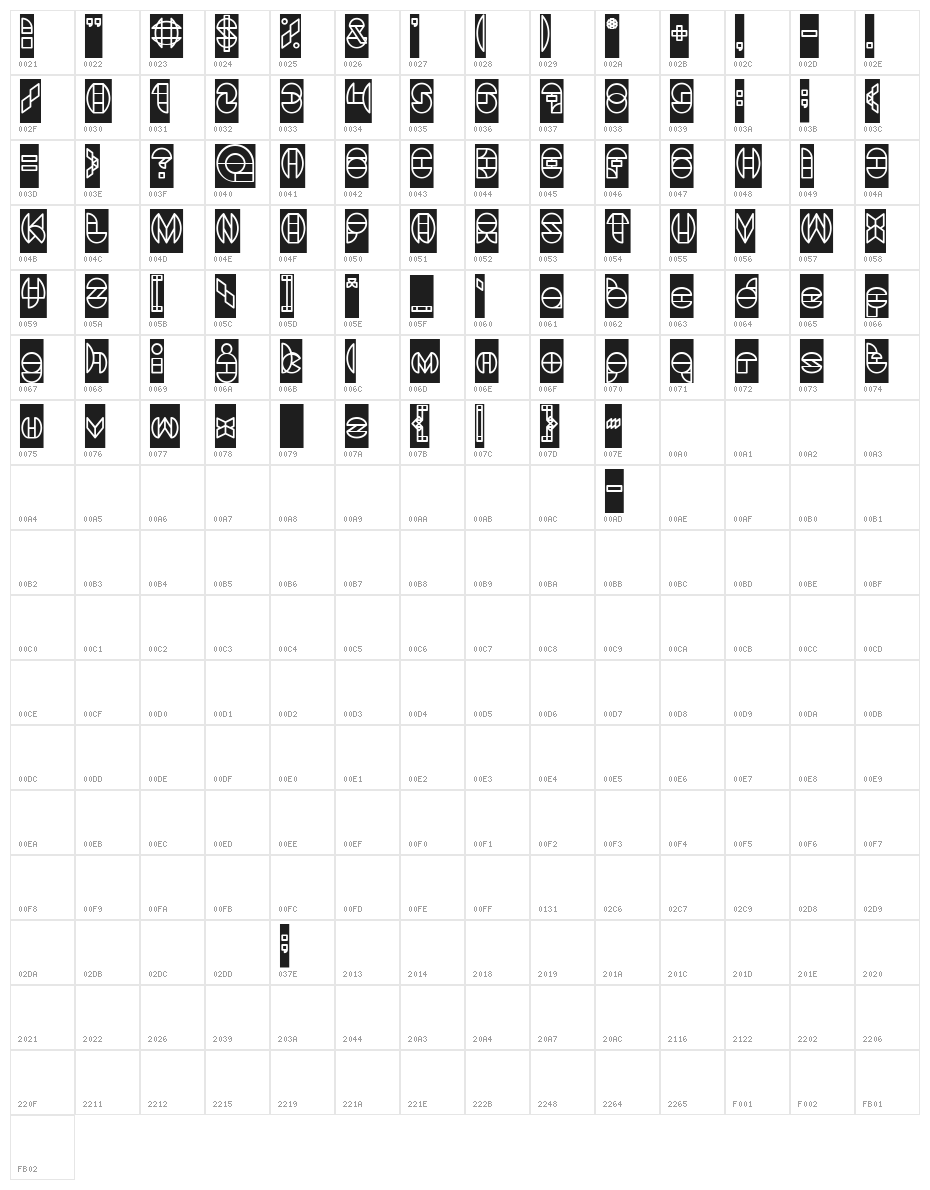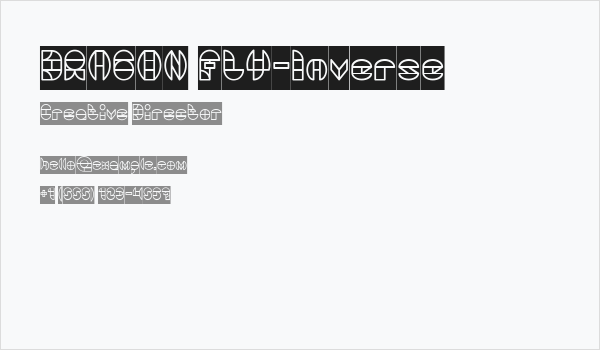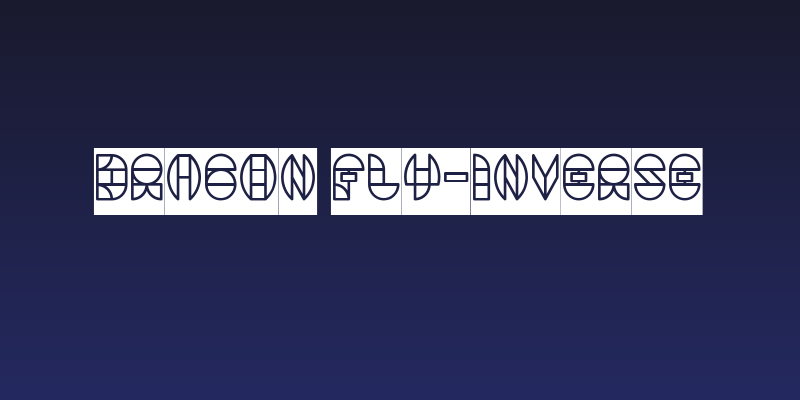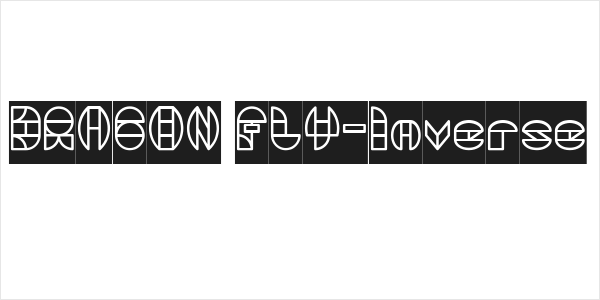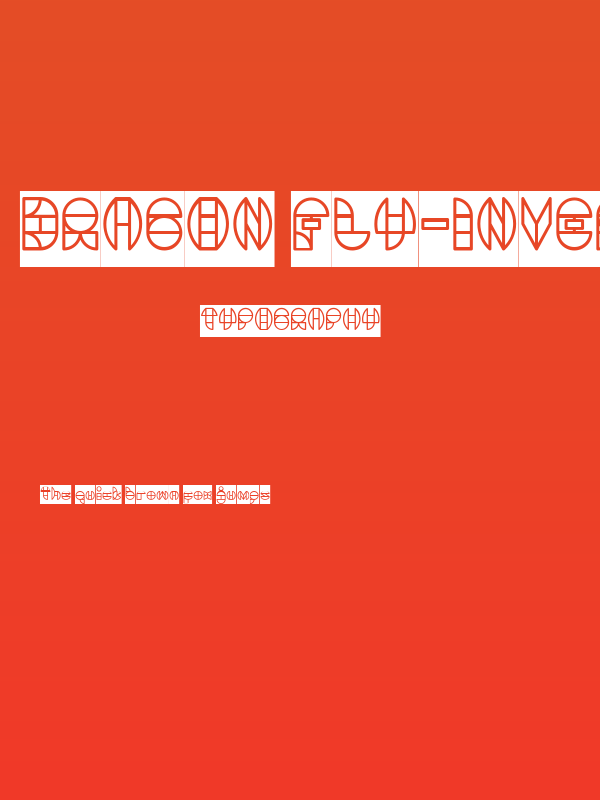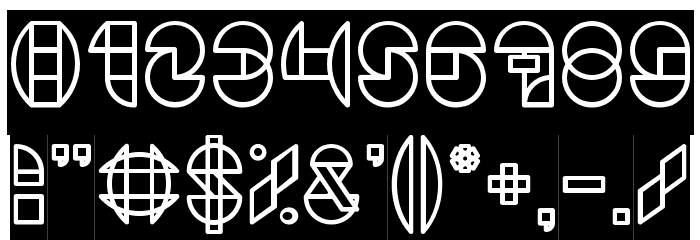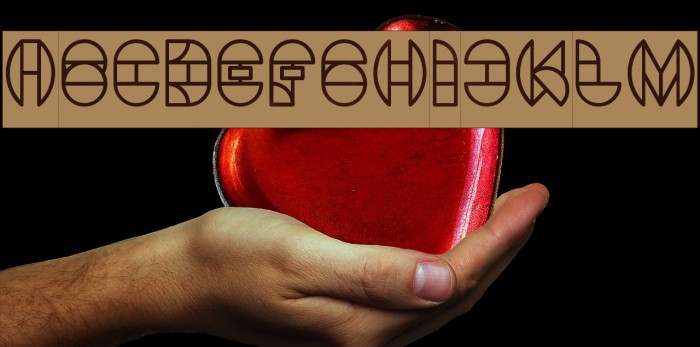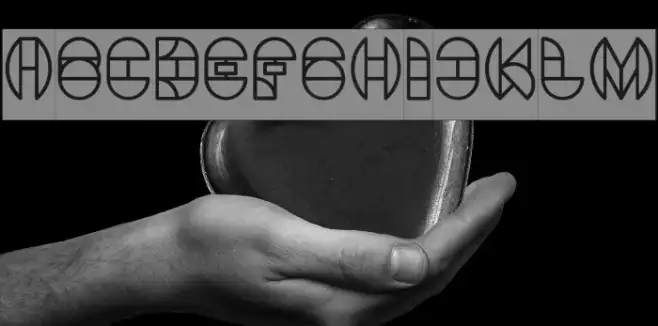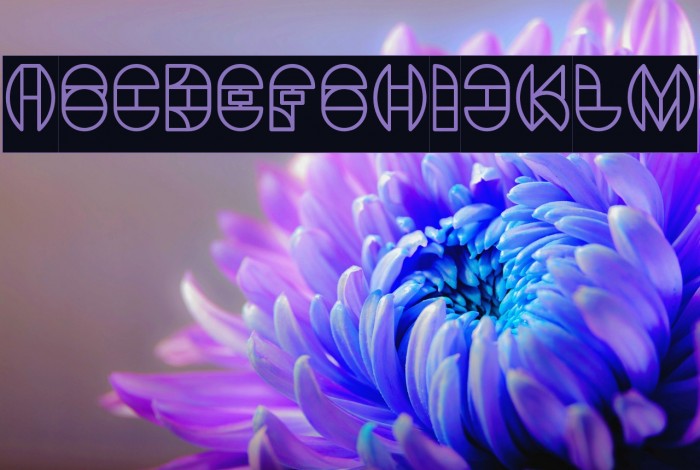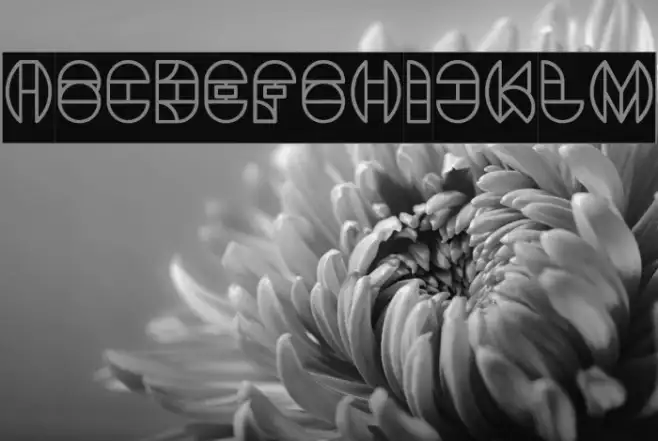
DRAGON FLY-Inverse Font
DRAGON FLY-Inverse Description
This font features a unique, geometric design with a futuristic and abstract aesthetic. Each character is crafted with a combination of circular and angular elements, creating a visually striking appearance. The letters are outlined, giving them a hollow look that enhances their modern and digital feel. The uppercase and lowercase letters maintain a consistent style, with the lowercase being slightly more compact. Numbers and special characters follow the same design principles, ensuring uniformity across the font. The overall style is bold and eye-catching, making it suitable for creative and innovative projects.